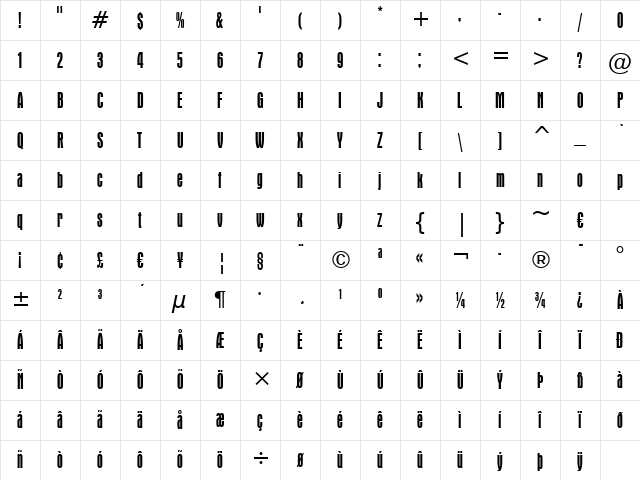
Complete Aurora Cn BT Regular glyph index. Displaying only characters natively supported by Aurora Cn BT Regular font.
Aurora Cn BT is a composed and adaptable typeface that performs quietly and consistently across a wide range of design contexts.